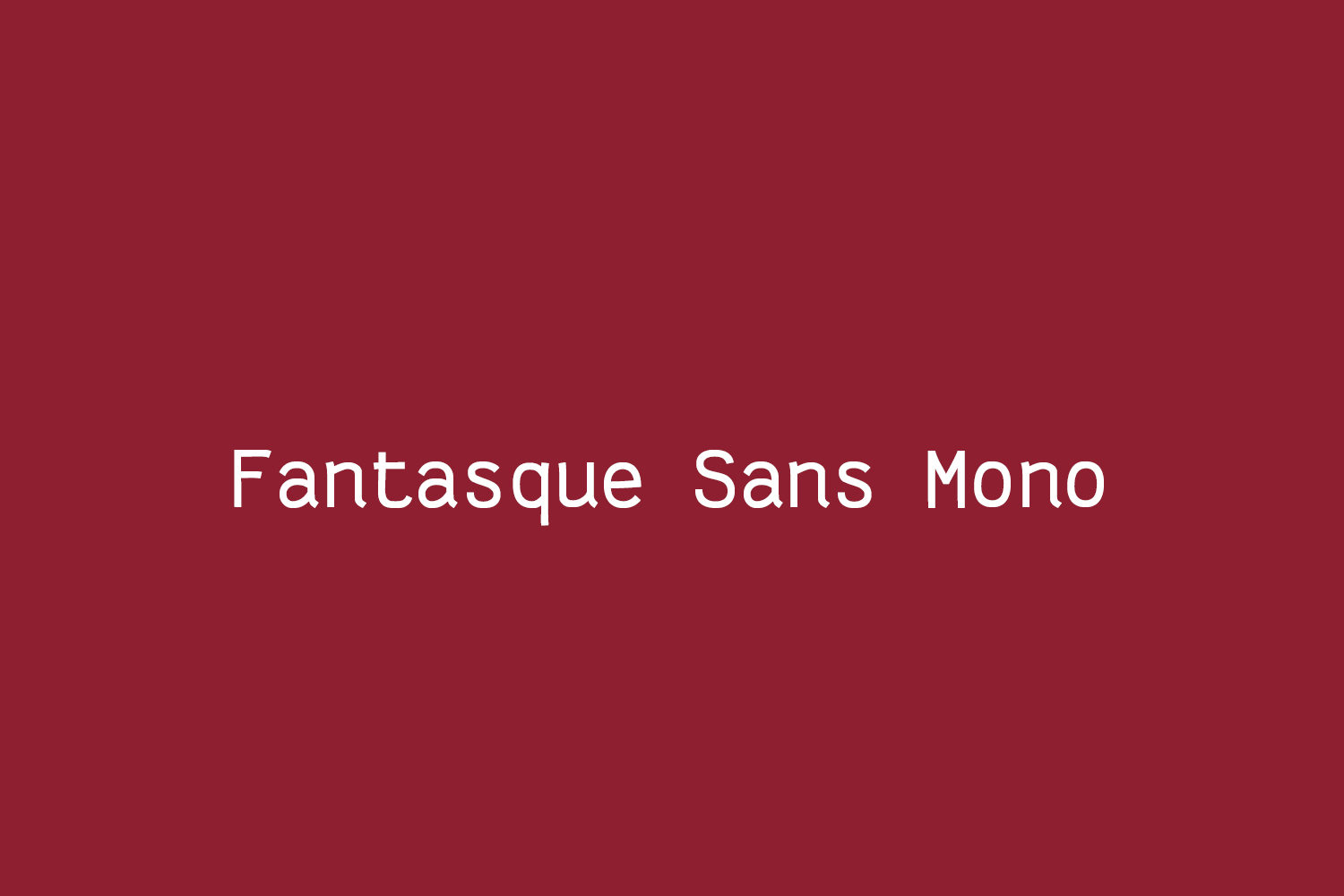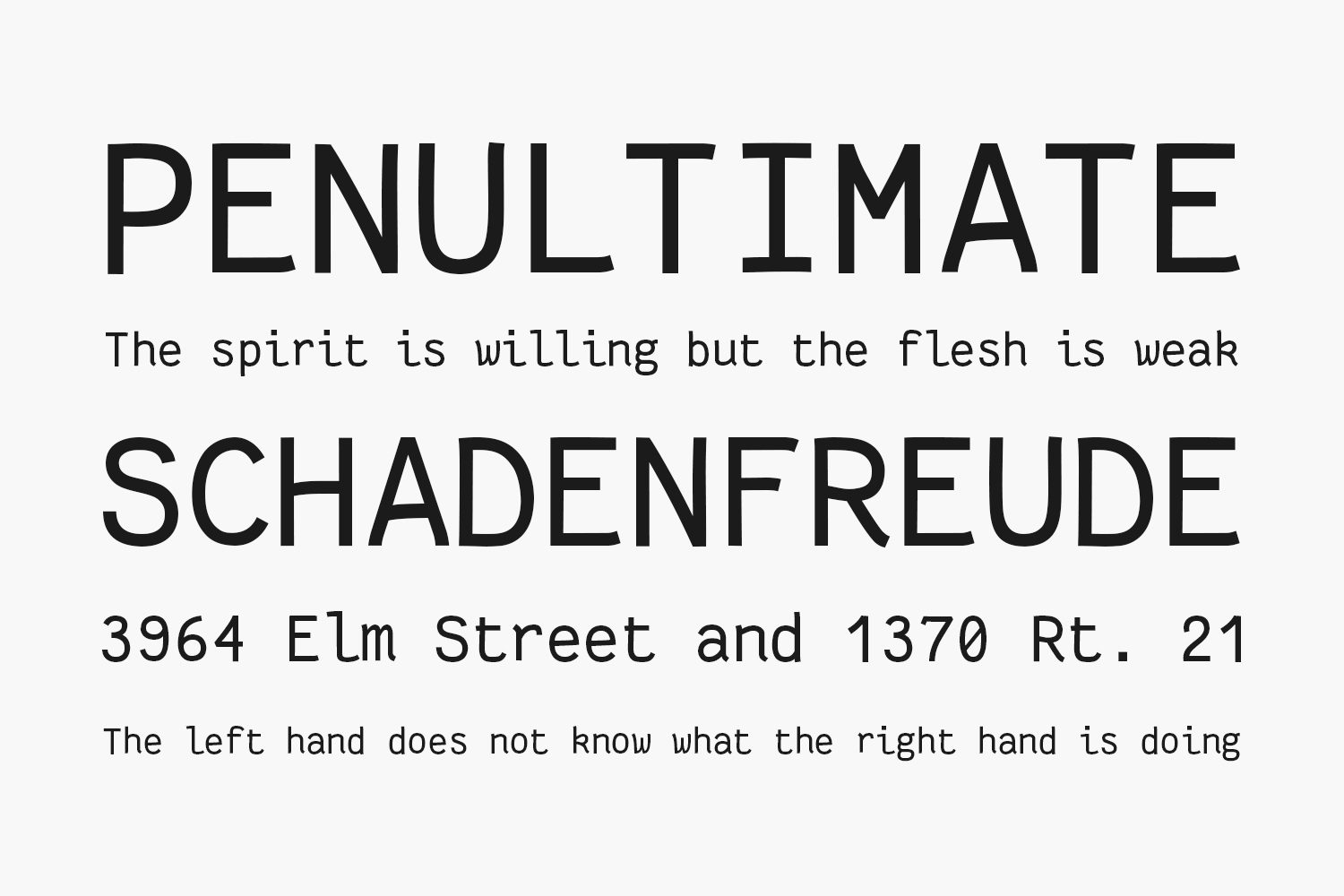
Fantasque Sans Mono is a programming font, designed with functionality in mind, and with some wibbly-wobbly handwriting-like fuzziness that makes it unassumingly cool.